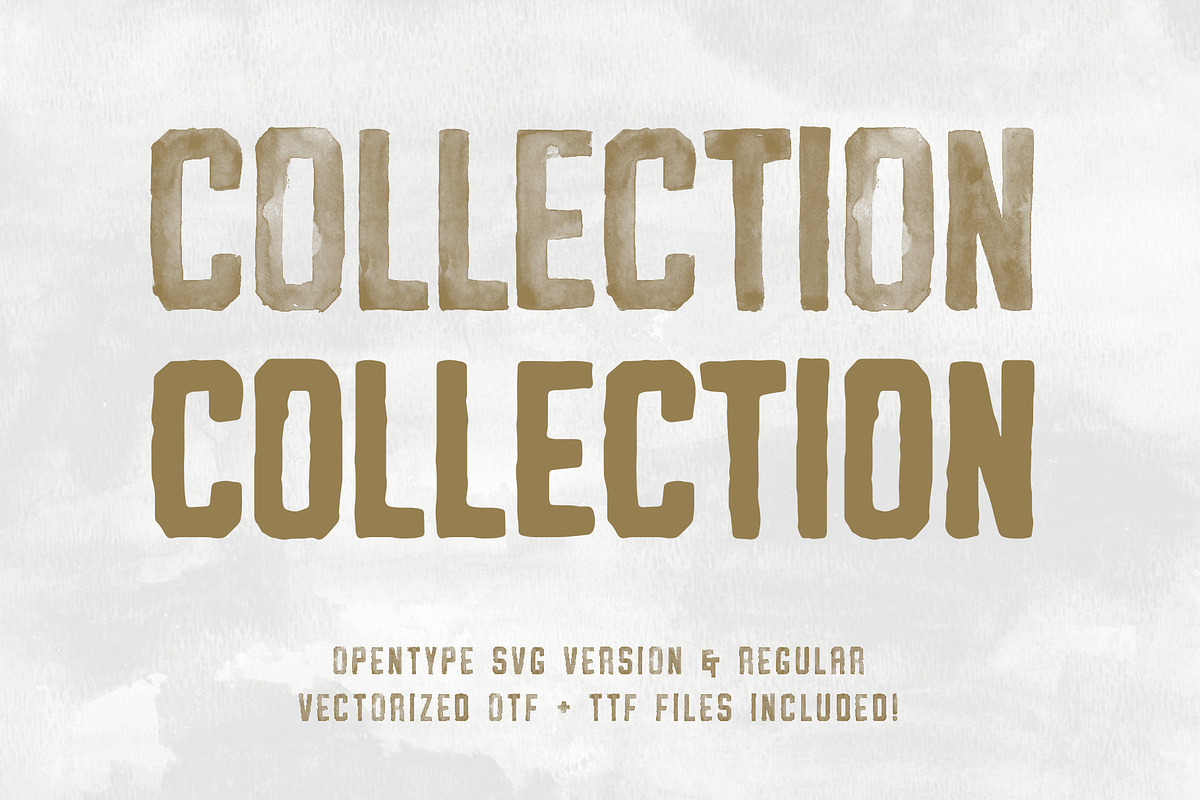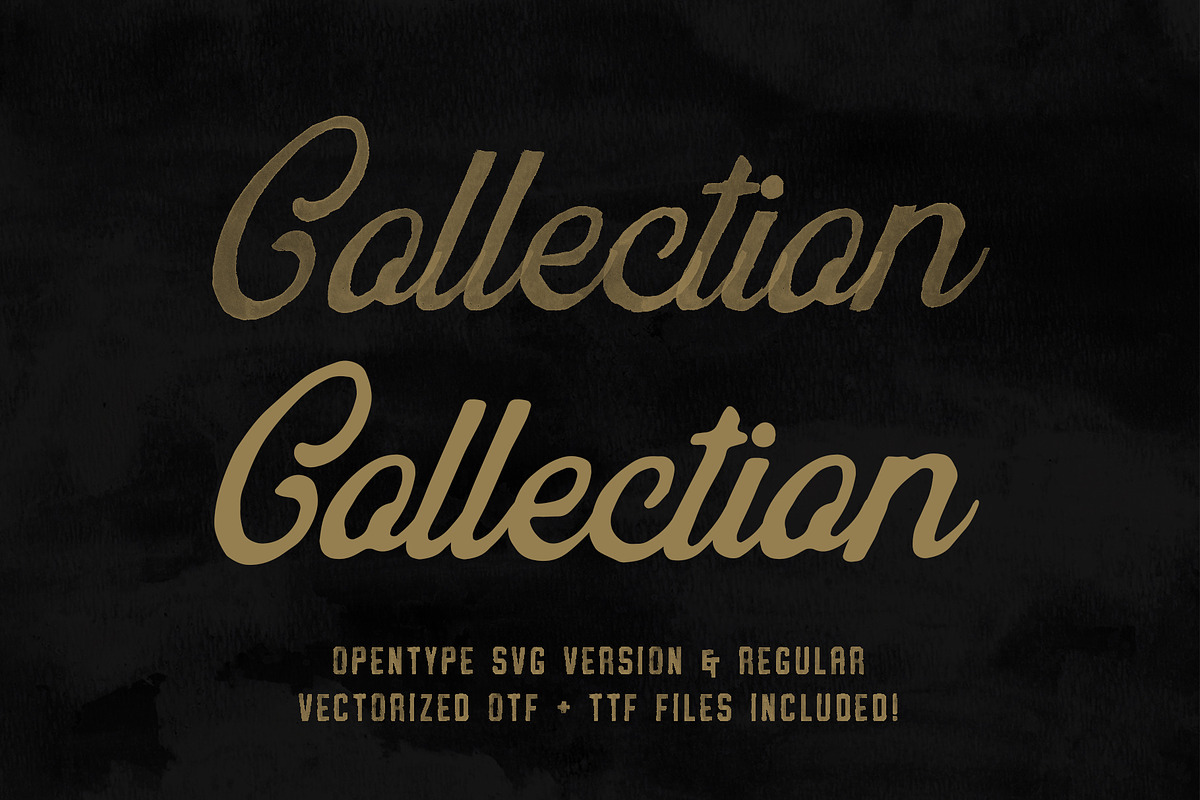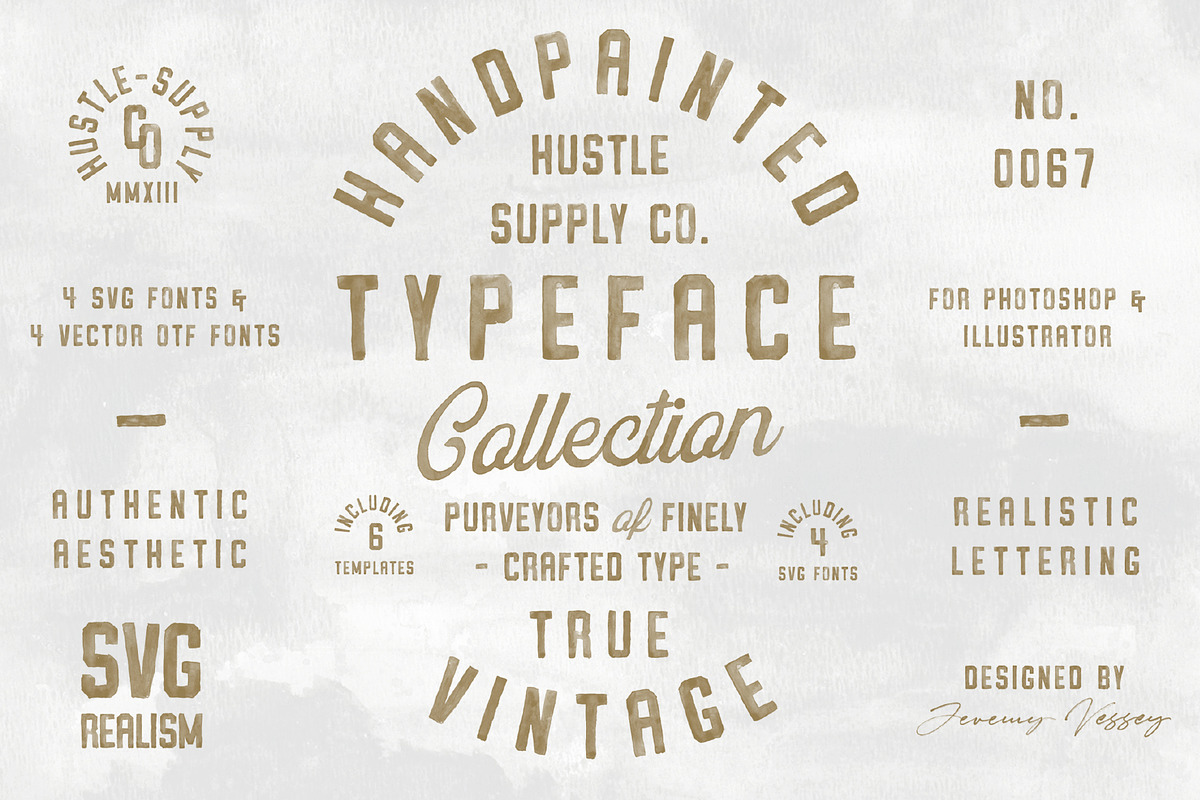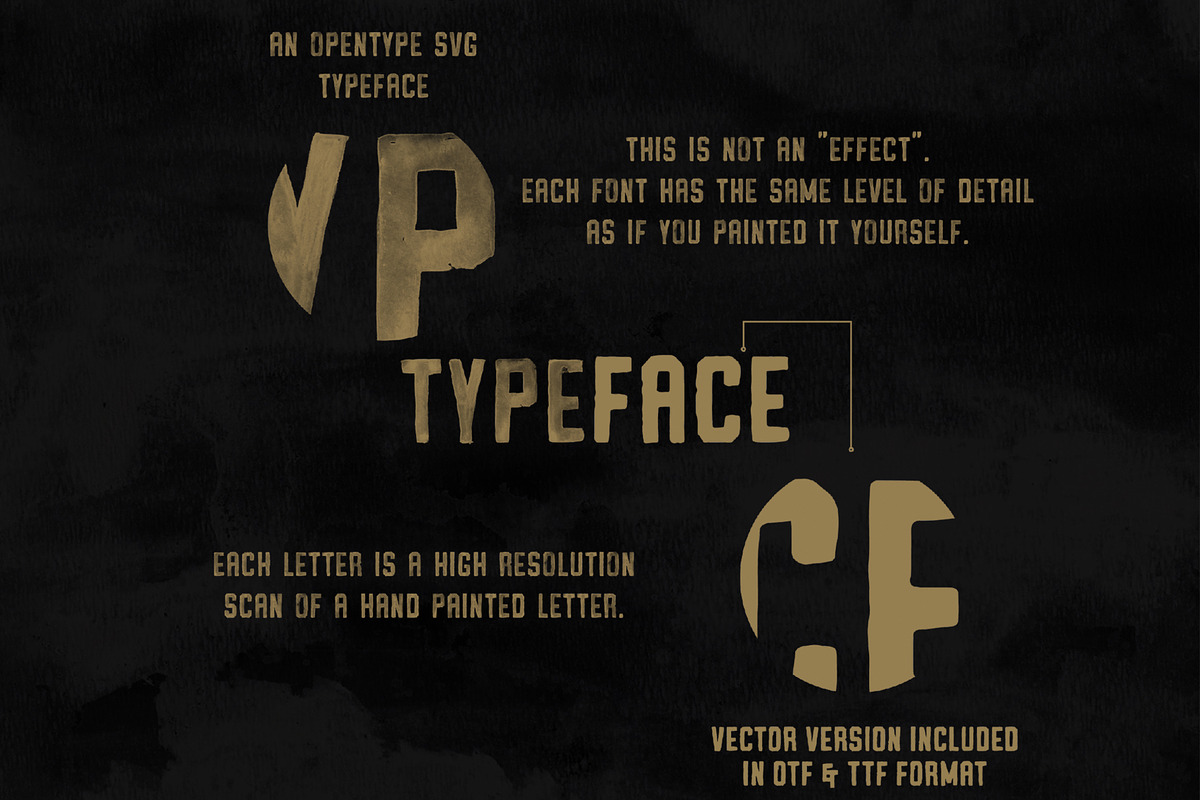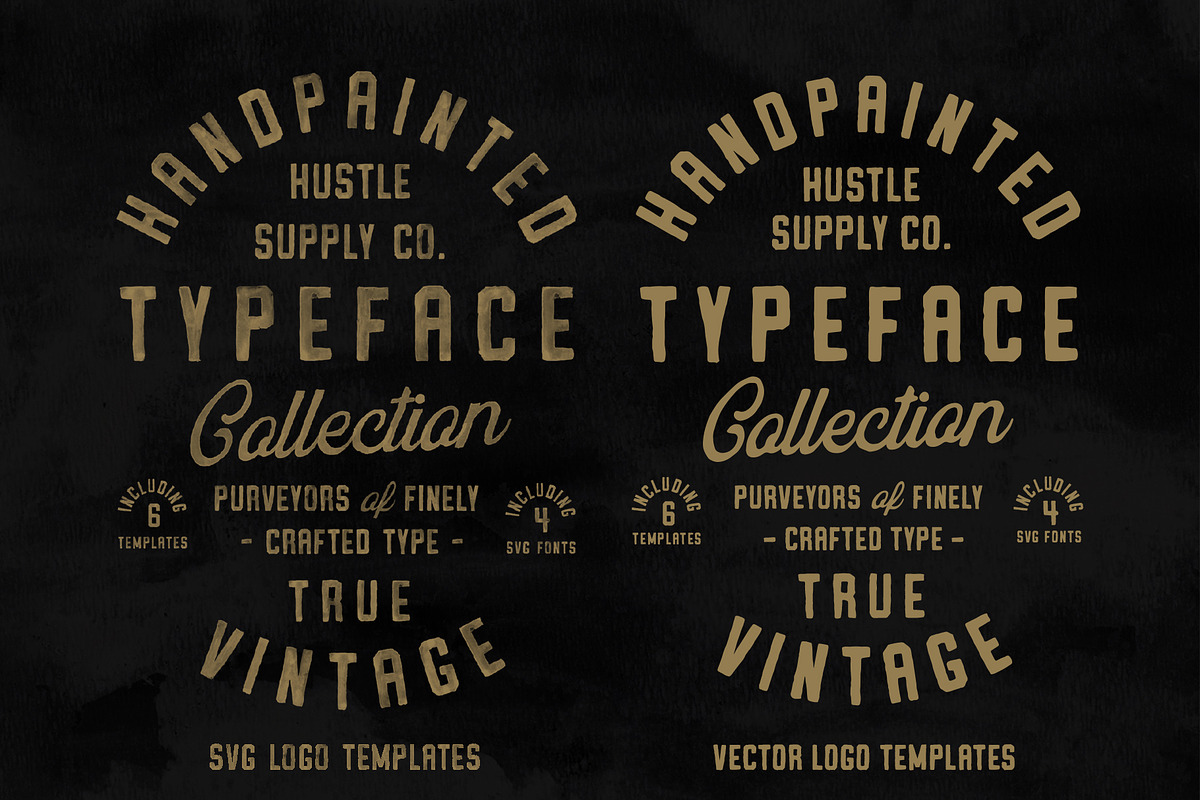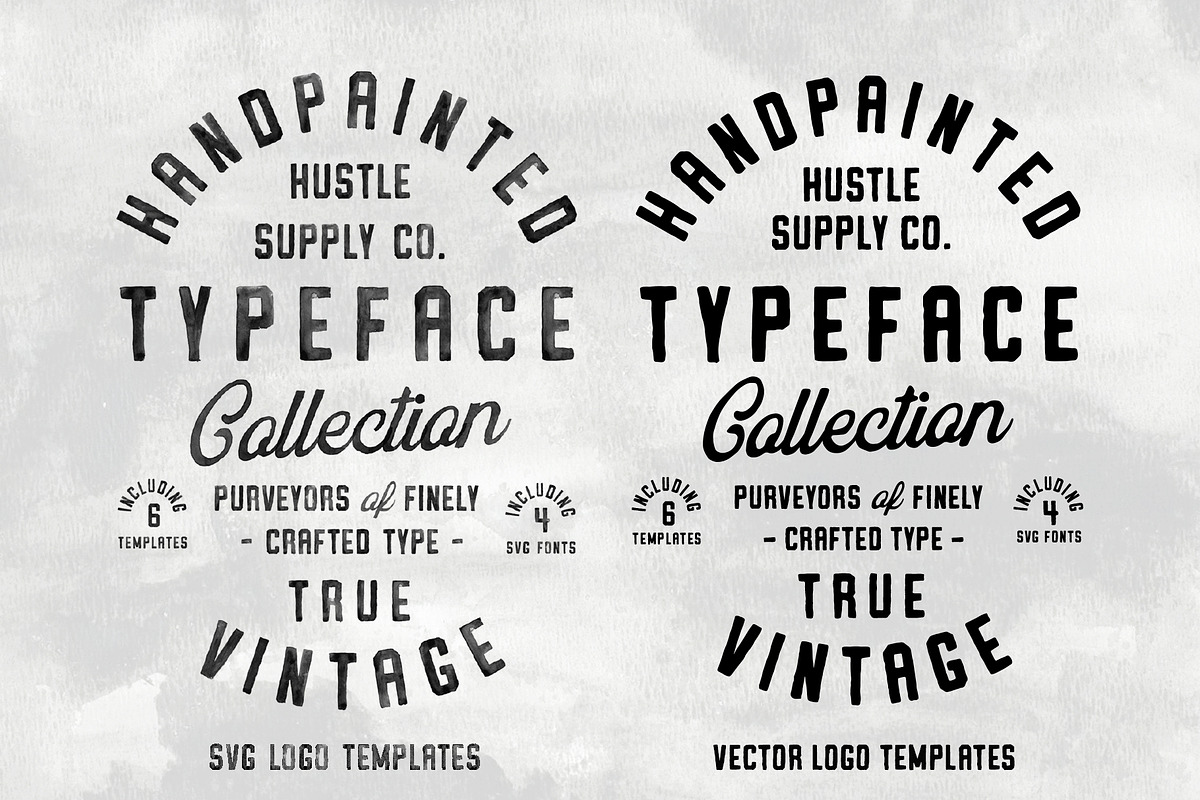
Vintage SVG Bundle & Templates
The Hand Painted Typeface Collection
Make every project look Handcrafted! No Photoshop Actions, No brushes, No Added Textures. Just type it out to make anything look like a Hand Lettered Masterpiece.
Get 4 Different SVG Typefaces & 4 Standard Matching Vectorized Fonts (8 In total) in this awesome Collection of realistic hand painted fonts. This collection is an incredible option for packaging, wedding invitations, business cards, prints, direct-to-garment printing on clothing, content creation on social media, etc.
Bring realism to your projects with this incredible Collection of hand painted Fonts & Templates.
Each font was painted, scanned at a high resolution and converted into Opentype SVG format. As you Type out any of these typefaces, you'll instantly achieve an authentic handmade aesthetic.
This includes 6 editable Logo / Label Templates. With Photoshop & Adobe Illustrator versions of each SVG Template. I've also included Editable Logo Templates with the standard vector Typefaces for Adobe Illustrator.